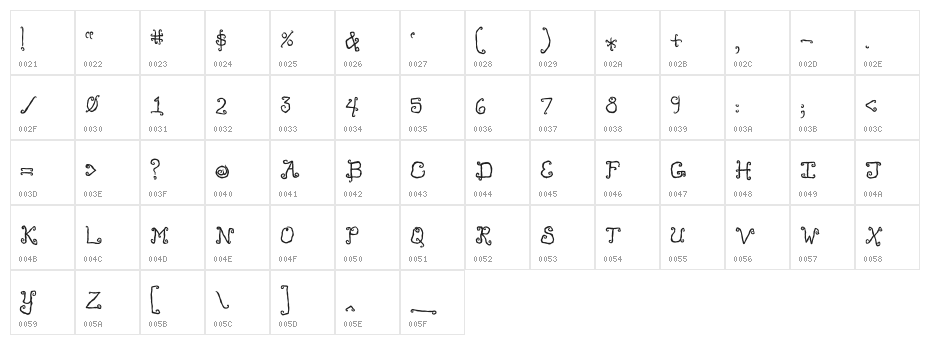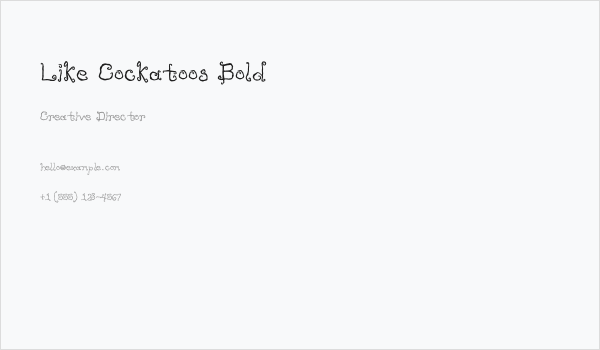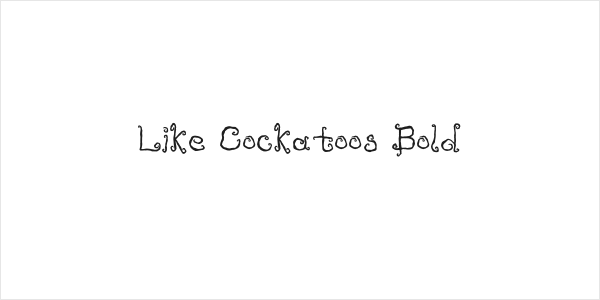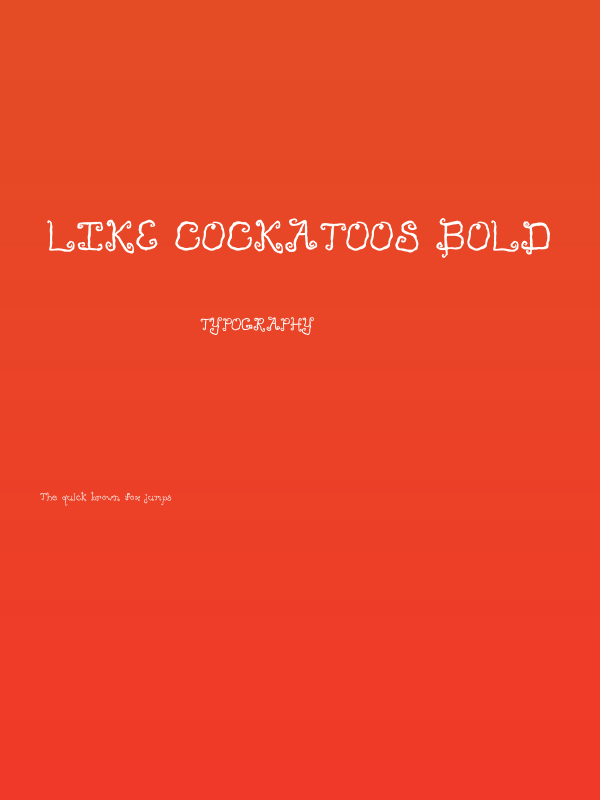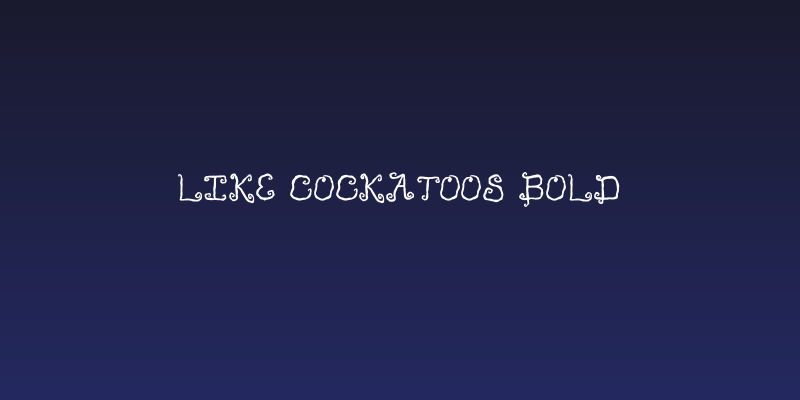
Like Cockatoos Bold Font
Like Cockatoos Bold Description
This font features a whimsical and playful design with curly, decorative elements on each character. The uppercase and lowercase letters are adorned with unique swirls and loops, giving the typeface a lively and artistic flair. The numbers and special characters maintain this decorative style, ensuring consistency throughout. The font's bold weight adds to its visual impact, making it suitable for eye-catching designs. Its distinct style is reminiscent of hand-drawn or illustrative typography, perfect for projects that require a touch of creativity and fun.
| Proposed Projects | Ideal for children's book covers, playful branding, creative posters, and artistic invitations. |